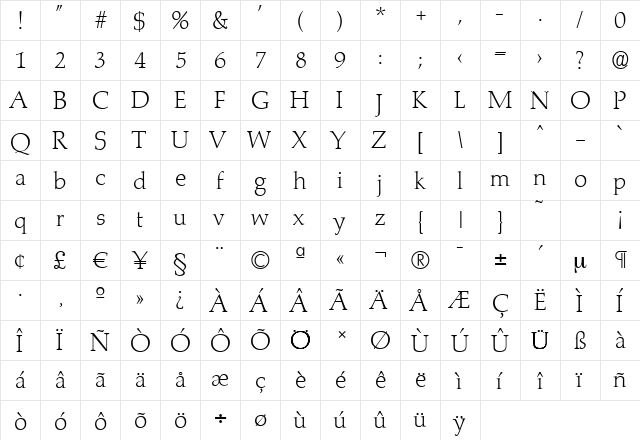
MarathonSerial-Xlight Regular
Design Context for MarathonSerial-Xlight Typeface
MarathonSerial-Xlight is a composed and adaptable typeface that performs quietly and consistently across a wide range of design contexts. The delicate stroke weight brings airiness and refinement to layouts.